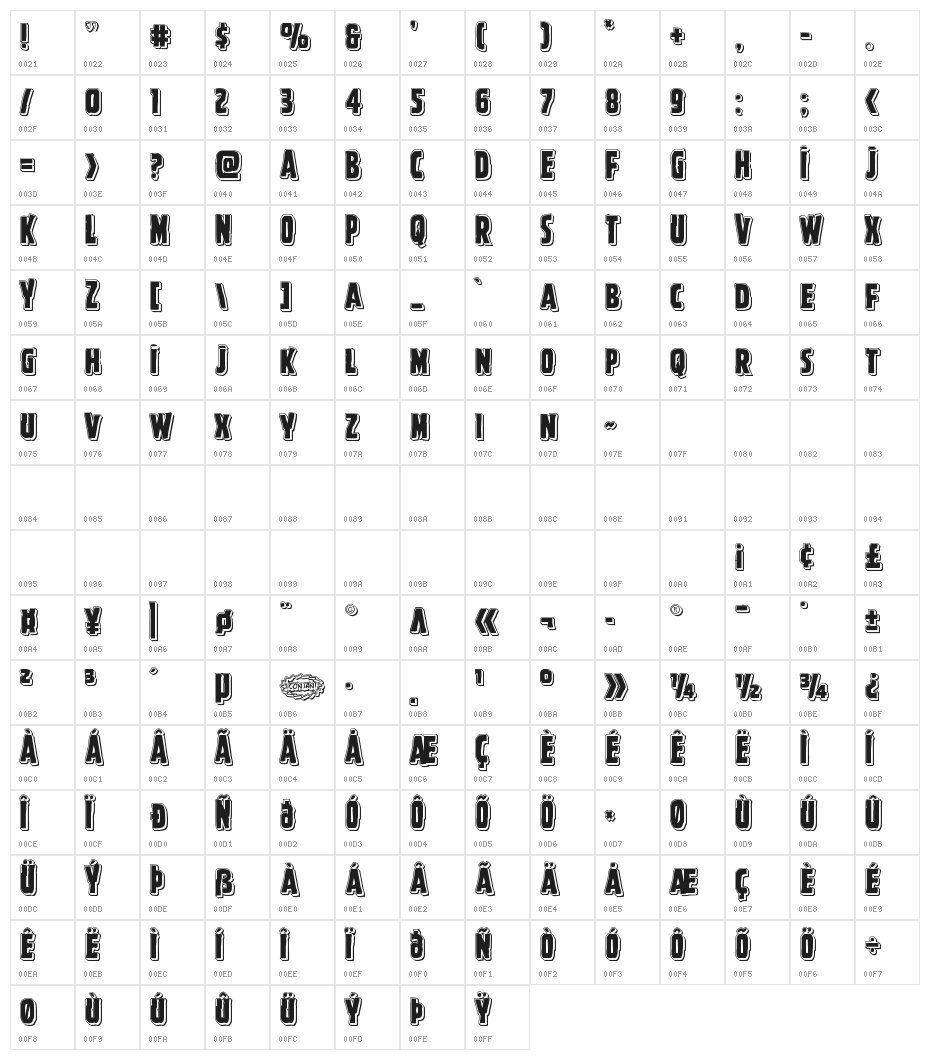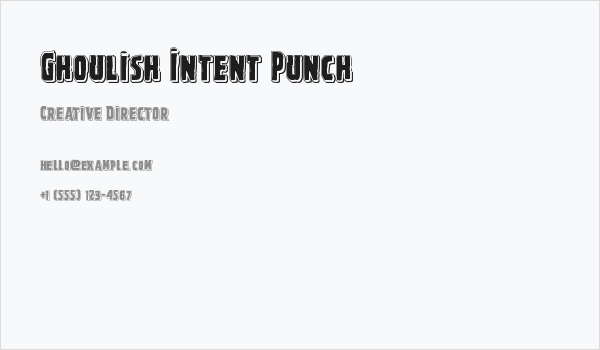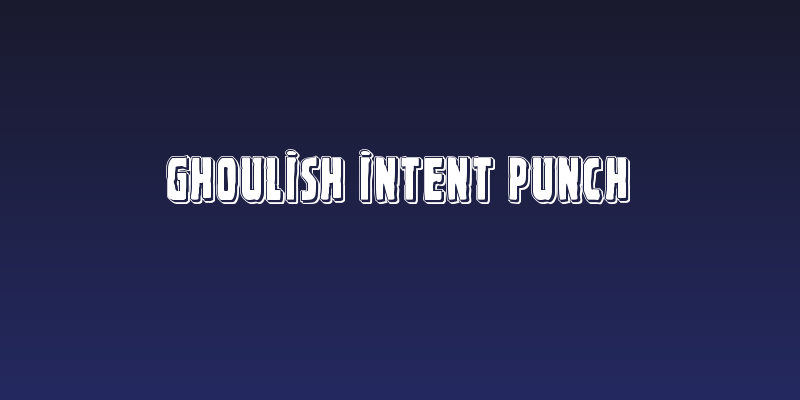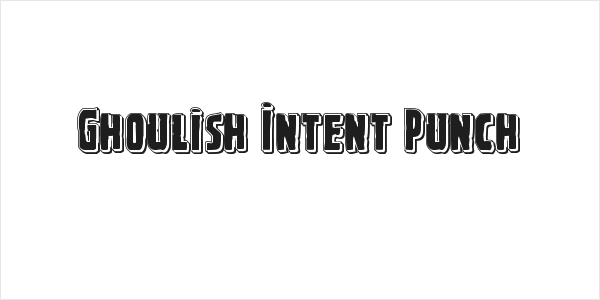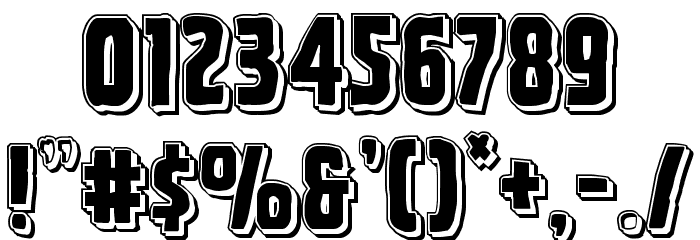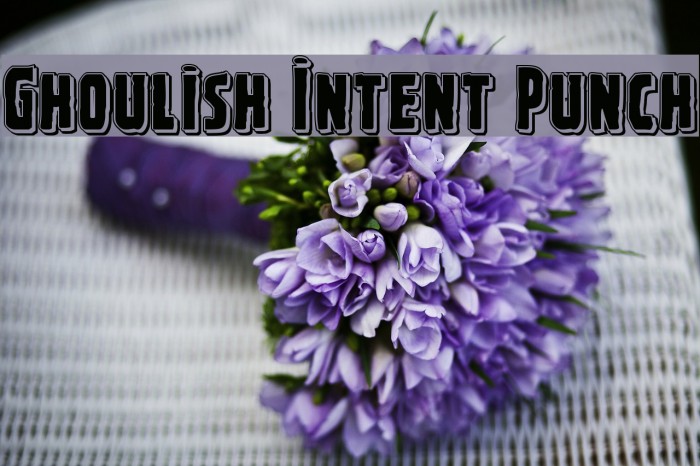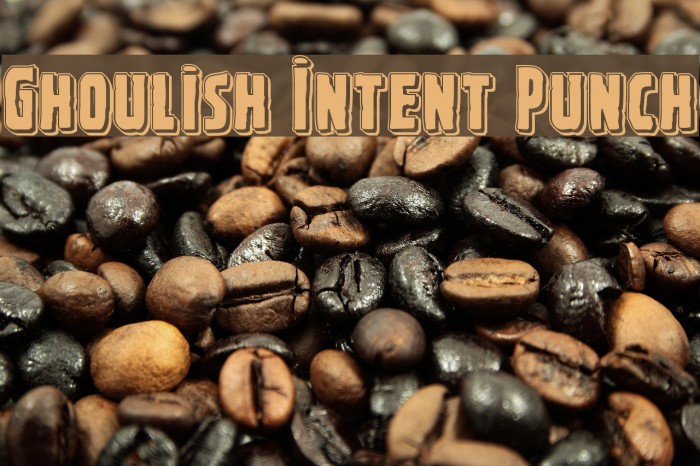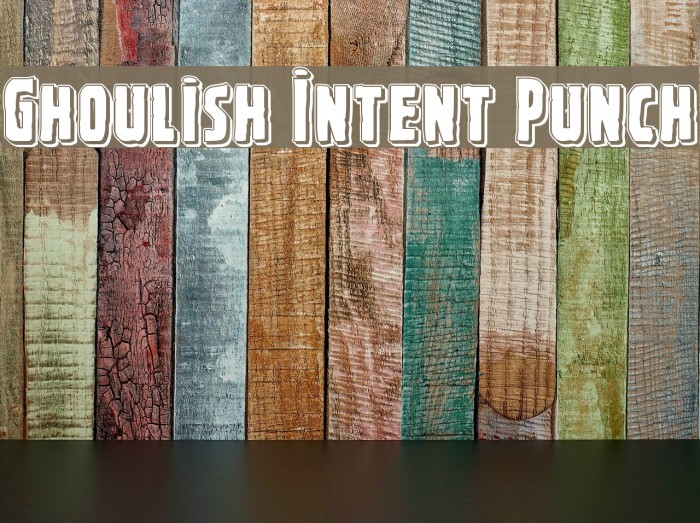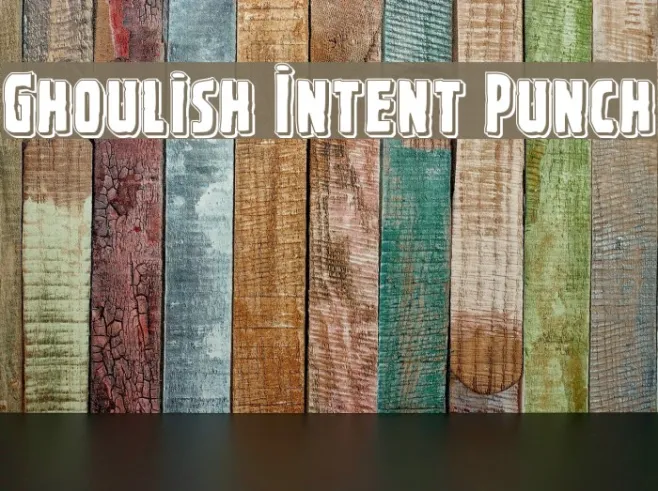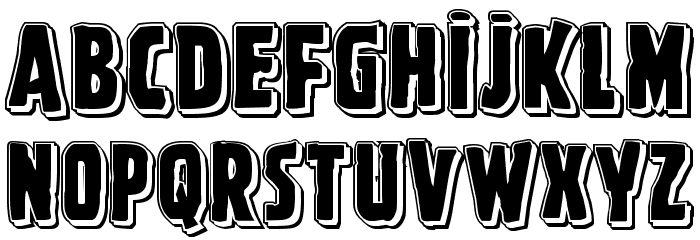
Ghoulish Intent Punch Font
Ghoulish Intent Punch Description
This font features a bold, impactful style with a strong outline that gives each character a shadowed, three-dimensional appearance. The uppercase letters are robust and commanding, making them ideal for attention-grabbing headlines. The numbers and special characters maintain this bold aesthetic, ensuring consistency across all uses. The font's playful yet assertive design makes it suitable for projects that require a touch of drama and flair. Its thick strokes and outlined style suggest a decorative or display category, perfect for thematic designs.
| Proposed Projects | Perfect for Halloween-themed designs, posters, event flyers, and any project needing a bold, eye-catching typeface. |